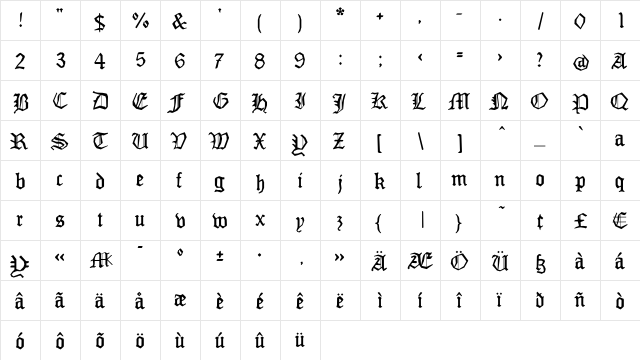
MonAmourFraktur2 Regular
Design Context for MonAmourFraktur2 Typeface
MonAmourFraktur2 channels the dramatic heritage of Fraktur and Gothic scripts, bringing a sense of historical gravitas to any design.
A natural fit for music packaging, gothic editorial design, and any project that needs historical weight.
Font Pairing: Pair with a clean neutral sans-serif for body copy to let MonAmourFraktur2's character lead without overwhelming the composition.
Pro Tip: Reserve MonAmourFraktur2 for display and logo use — pair it with a clean sans-serif for body copy to prevent the composition from feeling oppressive.